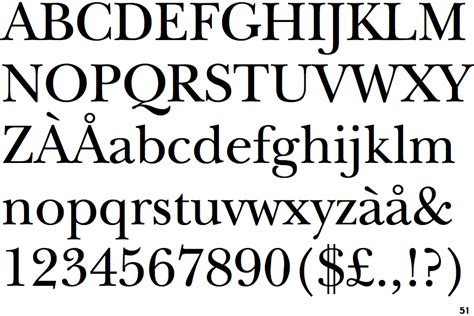
John Baskerville
New Baskerville Font. Web explore baskerville pt designed by arina alaferdova, dmitry kirsanov at adobe fonts. A serif typeface with 6 styles, available.
A serif typeface with 6 styles, available. Web baskervville is a revival of jacob’s revival of baskerville’s typeface. Web explore baskerville pt designed by arina alaferdova, dmitry kirsanov at adobe fonts.
A serif typeface with 6 styles, available. Web baskervville is a revival of jacob’s revival of baskerville’s typeface. A serif typeface with 6 styles, available. Web explore baskerville pt designed by arina alaferdova, dmitry kirsanov at adobe fonts.